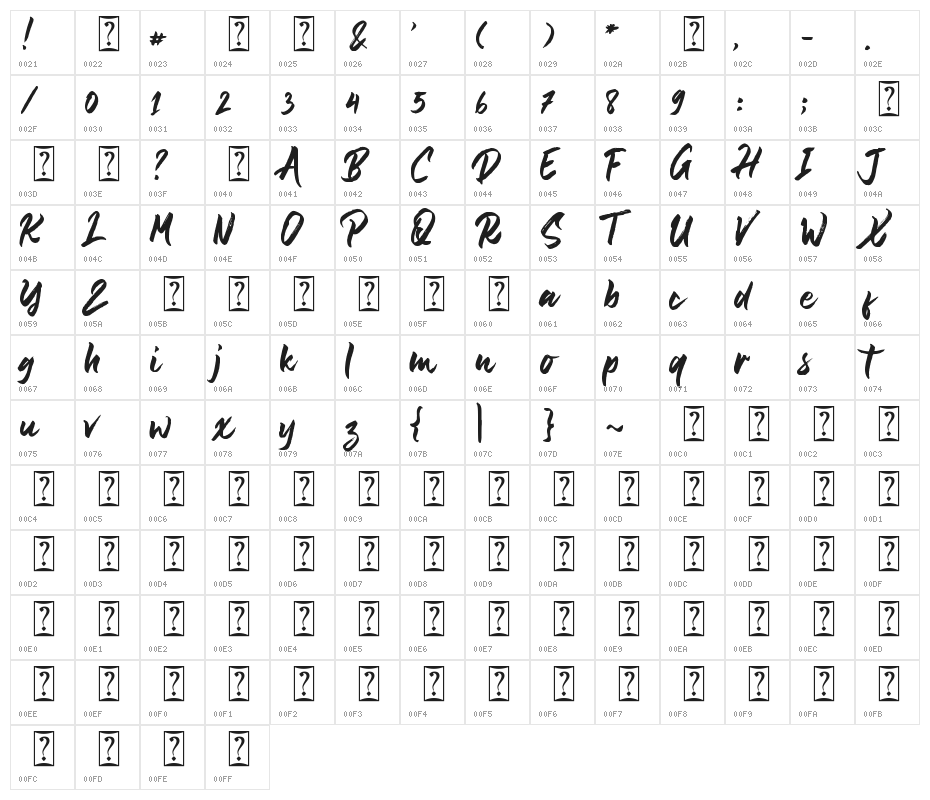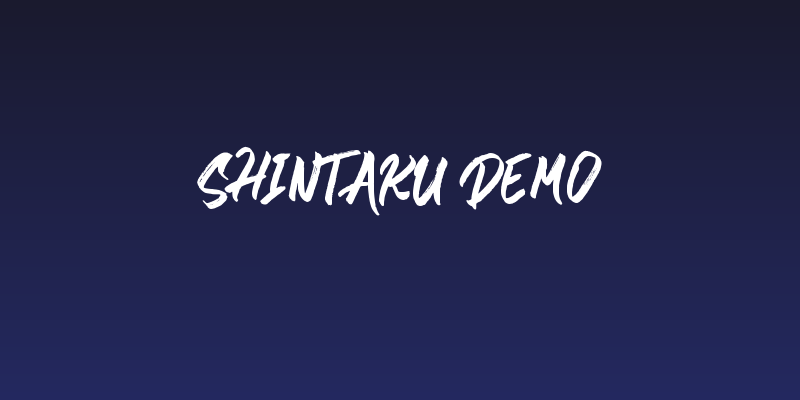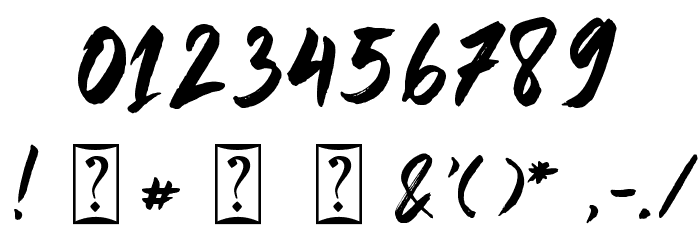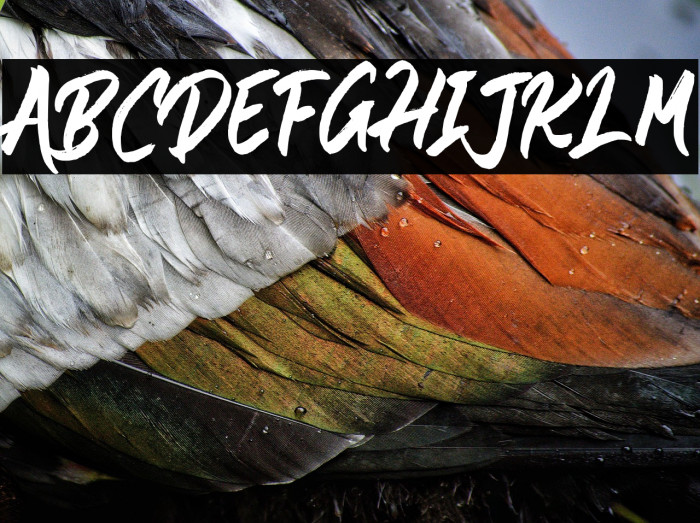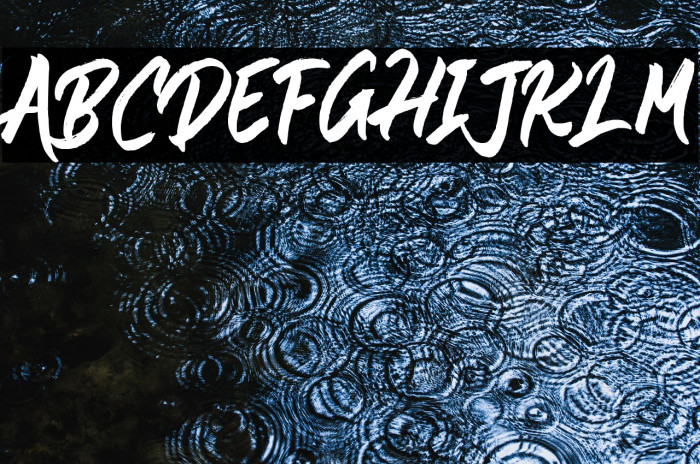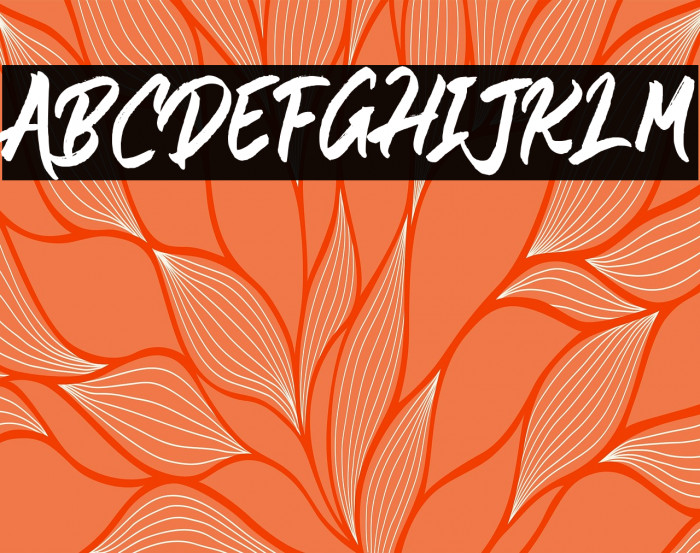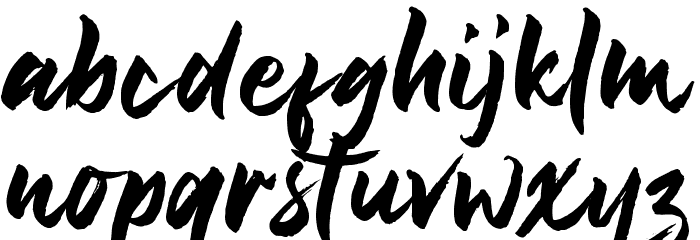
Shintaku Demo Font
This font features a bold, expressive brush script style, characterized by its dynamic and fluid strokes. The letters are crafted with a sense of movement and energy, giving them a lively and artistic appearance. The uppercase and lowercase letters maintain a consistent style, with a slightly irregular baseline that adds to the handcrafted feel. The numerals and special characters complement the alphabet with the same bold and flowing design. This font is ideal for projects that require a personal touch, such as invitations, posters, and branding materials.
| Use Case | Headlines, Logos, Artistic projects |
| Proposed Projects | Ideal for invitations, posters, branding, and any project needing a personal, artistic touch. |